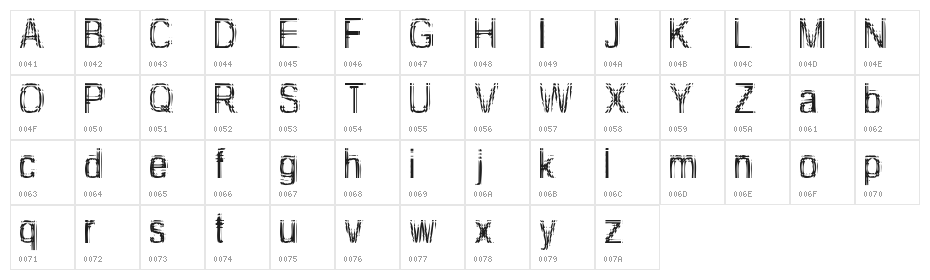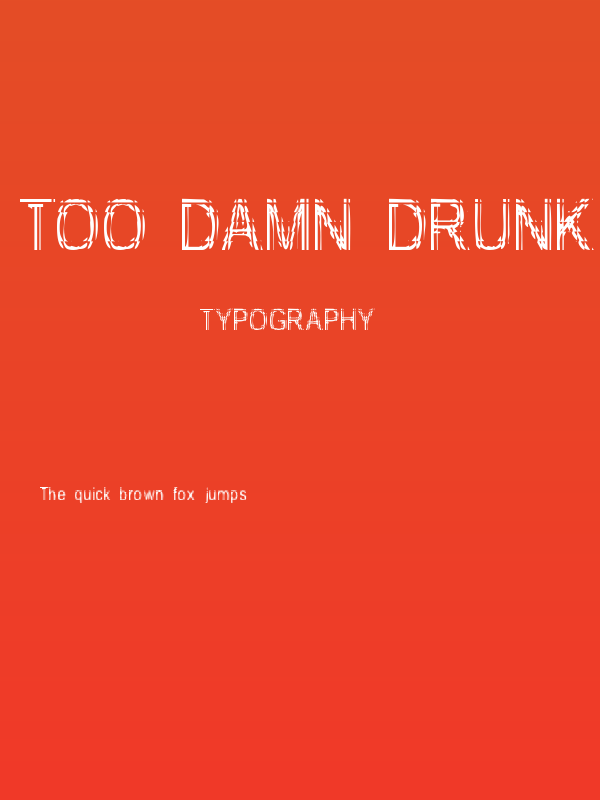
Too Damn Drunk Font
Too Damn Drunk Description
This font features a distressed, grunge aesthetic with a chaotic and edgy appearance. The letters are designed with a rough, uneven texture that gives them a worn and weathered look. The uppercase and lowercase letters maintain a consistent style, with jagged edges and irregular lines that create a sense of movement and energy. The numbers and special characters follow the same design principles, ensuring a cohesive look across all glyphs. This font's unique style makes it stand out, perfect for projects that require a bold and unconventional typeface.
| Overall Style | Grunge, Edgy, Distressed |
| Use Case | Headlines, Posters, Branding |
| Proposed Projects | Ideal for music album covers, edgy posters, streetwear branding, and rebellious-themed designs. |